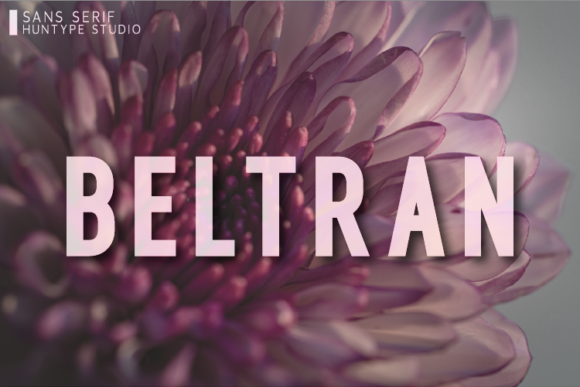
Discover the Elegance of Beltran Font: A Must-Have for Designers
In the world of typography, a well-crafted font can elevate a design from ordinary to extraordinary. For designers and crafters seeking a distinct and elegant sans serif font, Beltran Font is an exceptional choice. This masterfully designed typeface is perfect for a wide range of applications, including logos, branding, packaging design, and more. In this article, we’ll explore the features and benefits of Beltran Font, and why it’s a must-have for any designer looking to add a touch of sophistication to their work.
The Characteristics of Beltran Font
Beltran Font is a sans serif font, characterized by its clean lines, simple shapes, and elegant curves. Its distinctiveness lies in its perfect balance of modernity and classic sophistication. The font’s sleek and refined appearance makes it suitable for a variety of design projects, from corporate branding to creative packaging. Whether you’re designing a logo, brochure, or website, Beltran Font is sure to make a lasting impression.
Key Features of Beltran Font
- Unique and Elegant Design: Beltran Font boasts a unique and elegant design that sets it apart from other sans serif fonts. Its refined curves and clean lines make it perfect for designs that require a touch of sophistication.
- High Versatility: This font is highly versatile and can be used in a wide range of design applications, including logos, branding, packaging, and more.
- Excellent Legibility: Beltran Font is designed with excellent legibility in mind, making it easy to read and understand, even at small sizes.
- Scalability: The font is highly scalable, ensuring that it looks great at any size, from business cards to billboards.
Why Choose Beltran Font?
With so many fonts available, why choose Beltran Font? Here are just a few reasons why designers and crafters are falling in love with this exceptional typeface:
- Stand Out from the Crowd: Beltran Font is a unique and distinctive font that will help your design stand out from the crowd. Its elegant design and sophisticated appearance make it perfect for designers looking to create a lasting impression.
- Easy to Pair: Beltran Font is easy to pair with other fonts, making it a great addition to any design project. Its versatility ensures that it will complement a wide range of typography styles.
- Time-Saving: With Beltran Font, you can save time and effort in your design projects. Its excellent legibility and scalability mean that you can use it for a wide range of applications, from print to digital.
How to Use Beltran Font in Your Design Projects
Beltran Font is a versatile typeface that can be used in a wide range of design projects. Here are just a few ideas to get you started:
- Logo Design: Use Beltran Font to create a unique and elegant logo that will help your brand stand out.
- Branding: Create a cohesive brand identity with Beltran Font, using it for business cards, letterheads, and more.
- Packaging Design: Add a touch of sophistication to your packaging design with Beltran Font, perfect for product labels, boxes, and bags.
- Digital Design: Use Beltran Font in your digital design projects, including websites, social media graphics, and more.
In conclusion, Beltran Font is a distinct and elegant sans serif font that is perfect for designers and crafters looking to add a touch of sophistication to their work. Its unique design, high versatility, and excellent legibility make it a must-have for any design project. Whether you’re designing a logo, branding materials, or packaging, Beltran Font is sure to make a lasting impression. So why wait? Discover the elegance of Beltran Font today and take your designs to the next level.